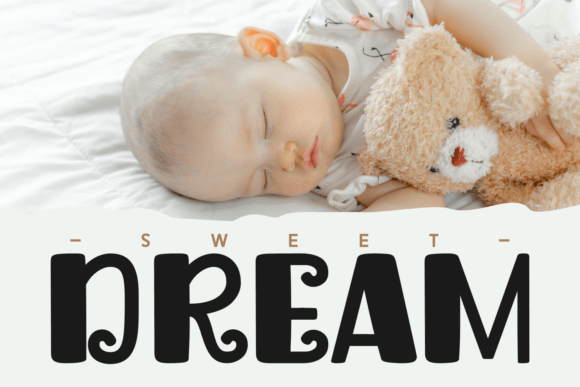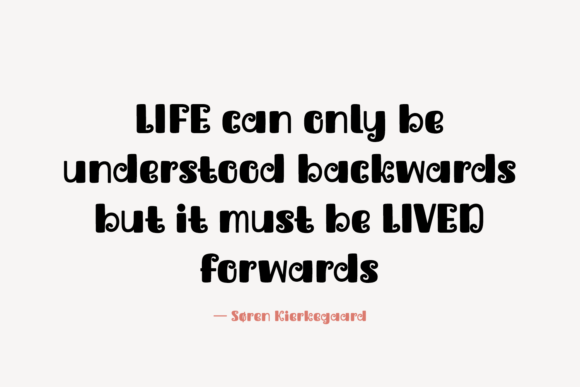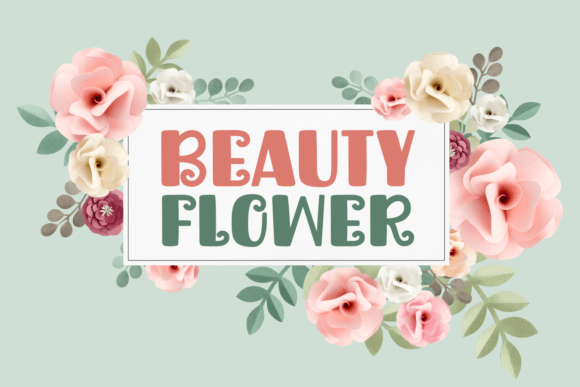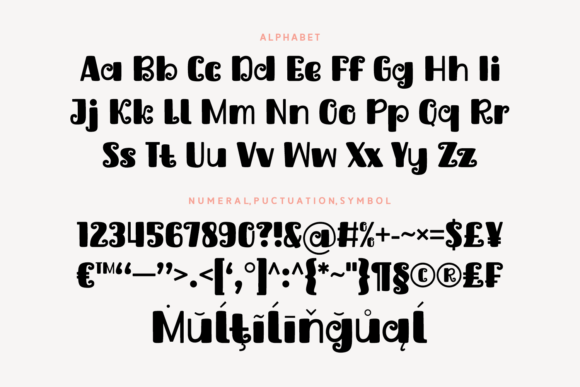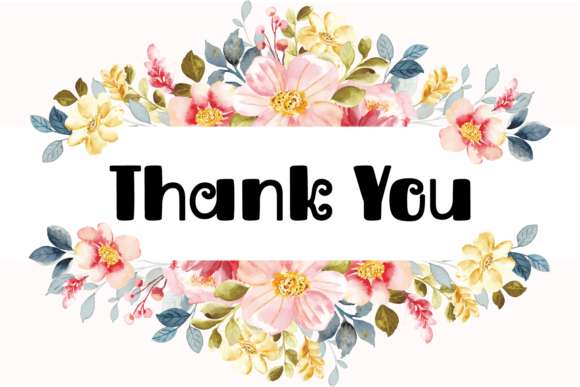
Introduction to Beauty Soffina Font Font
Fonts play a crucial role in design, and the Beauty Soffina Font font is a typeface that brings both character and versatility to any project. Whether you’re working on a branding project, a website, or a print design, the Beauty Soffina Font font offers a unique style that can elevate your work.
Beauty Soffina is a simple handwritten font, perfect for adding a personal touch to any project.
Great for cards, invitations, and other creative projects Itβs easy to read and has a unique, inviting look.
Key Features of Beauty Soffina Font Font
Why Choose Beauty Soffina Font Font?
The Beauty Soffina Font font is more than just a typeface β it’s a design tool that helps you communicate your message with style and clarity. Its unique character set and versatile design make it suitable for a wide range of applications, from elegant invitations to bold headlines.
With its carefully crafted letterforms and balanced proportions, the Beauty Soffina Font font ensures readability and visual appeal across all mediums.
What makes Beauty Soffina Font font special?
The Beauty Soffina Font font stands out with its unique design, exceptional readability, and versatility across various design applications.